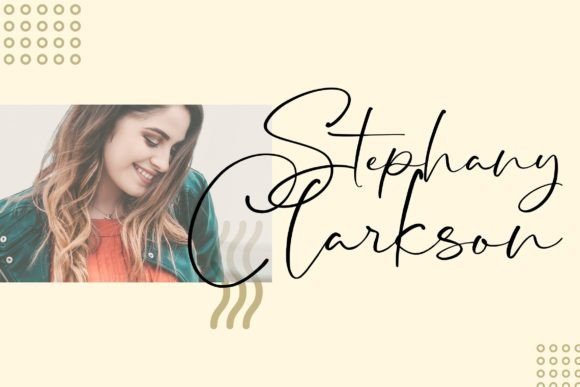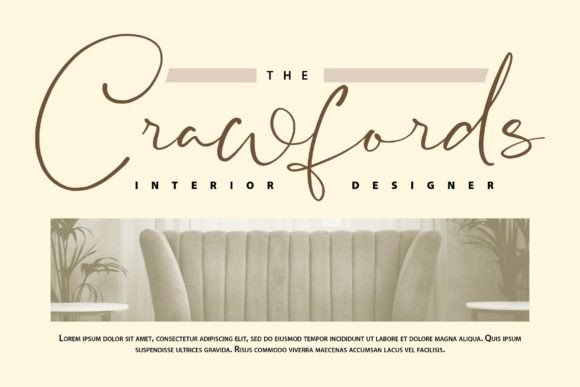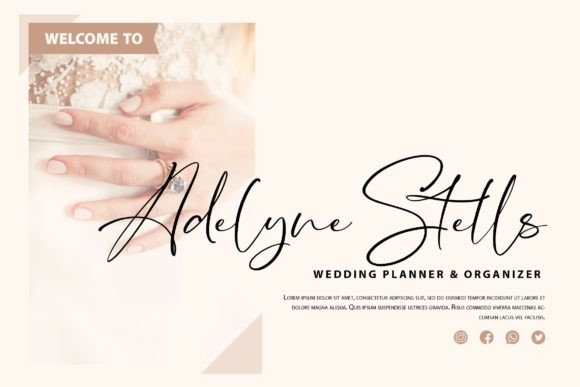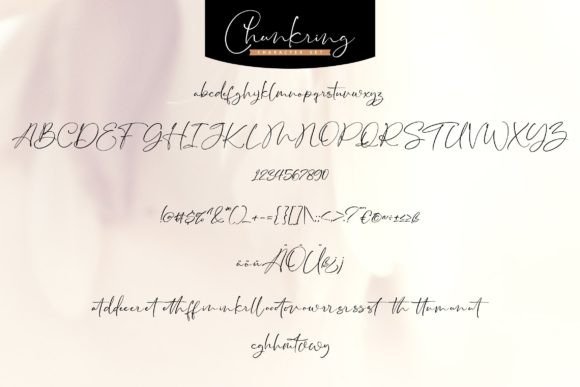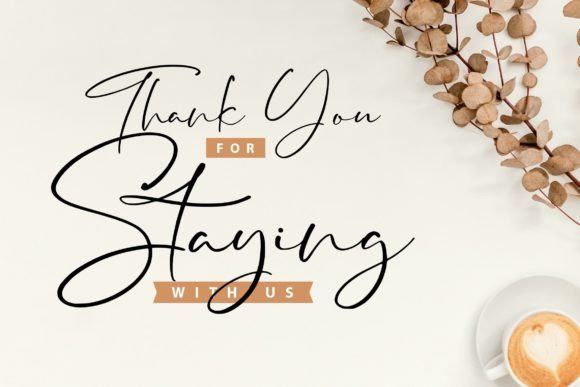
Chunkring Font
About Chunkring Font
“Chunkring” is a captivating handwritten font that weaves enchantment with its charming script style. This versatile font adds a touch of romance to a diverse array of projects, spanning from greeting cards to headlines, promising to infuse your next endeavor with a delightful and romantic feel.
The enchanting quality of “Chunkring” is evident in its meticulously crafted design, characterized by graceful strokes and an inherently romantic aesthetic. The handwritten nature of the font brings a personal and intimate touch, making it well-suited for creative projects where a romantic and expressive tone is desired.
This script font’s versatility opens up a world of possibilities for designers. From creating heartwarming greeting cards to crafting attention-grabbing headlines, “Chunkring” effortlessly adapts to various contexts, elevating the visual impact of your text with its charming and romantic allure.
An outstanding feature of “Chunkring” is its PUA encoding, granting convenient access to a diverse range of glyphs and swashes. This encoding empowers designers to explore and utilize the font’s full spectrum of decorative elements, allowing for customization and personalization. The inclusion of swashes adds an extra layer of elegance, providing the means to craft designs that are not only romantic but also uniquely tailored to your creative vision.
Incorporating “Chunkring” into your projects is a seamless way to infuse a romantic and enchanting atmosphere. The font’s ability to evoke emotions makes it a valuable asset for designers working on projects that require a connection with the audience. Whether it’s an invitation, a headline, or any design where romance is the theme, “Chunkring” is designed to leave a lasting and charming impression.
In conclusion, “Chunkring” is more than just a font; it’s a design tool that adds enchantment and romance to your creative projects. Its versatility, coupled with PUA encoding, provides designers with the freedom to create unique and personalized designs. As you explore the possibilities with “Chunkring,” you’ll discover its ability to infuse your projects with a romantic and captivating essence, making it a standout choice for a wide range of applications.